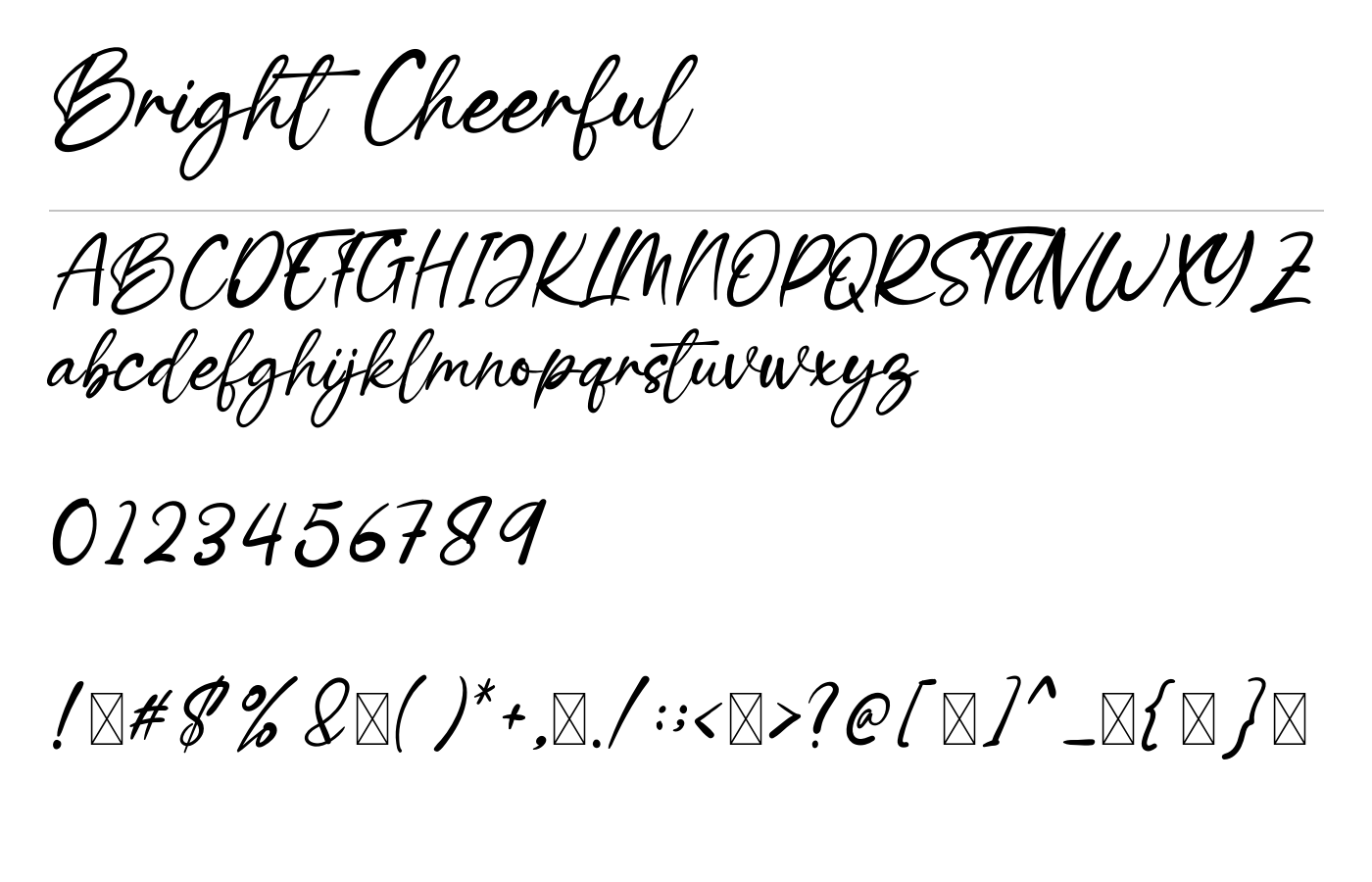
Bright Cheerful is a lively and elegant script font with a natural, handwritten feel, characterized by its flowing, slightly varied strokes and moderate contrast. Its casual yet refined style makes it perfect for branding, invitations, and creative projects that want to convey warmth, friendliness, and sophistication. This font works especially well for logos, social media graphics, and personal stationery where a personal and approachable touch is desired.
Bright Cheerful Font
About Bright Cheerful Font